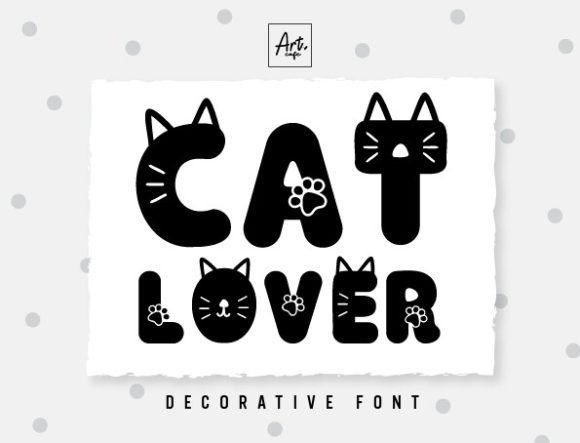
The Purr-fect Font for Designers: Introducing Cat Lover Font
Do you ever find yourself doodling cats everywhere, from your to-do lists to your social media posts? You’re not alone! For many of us, cats bring a sense of joy and comfort that inspires our creativity. And what better way to express that love than with a font that’s as playful and adorable as our feline friends?
Enter Cat Lover Font, a display font designed specifically for cat lovers and kids. This bold and cheerful font is perfect for any design project, from posters and t-shirts to planners and stickers. With full support for all English characters, Cat Lover Font is a valuable addition to any designer’s toolkit. Whether you’re working on a cat-themed project or just want to add a little whimsy to your designs, this font is sure to bring a smile to your face and a touch of personality to your work.
Cat Lover Font Key Features
- Unique Characteristics: The Cat Lover Font features adorable cat silhouettes and whimsical designs, making it a perfect choice for cat lovers and designers looking for a playful touch.
Designer Review: Cat Lover Font
Overall, I was excited to dive into the Cat Lover Font, as a self-proclaimed cat enthusiast and designer. Here’s my honest take.
- Unique Feline Features: The font’s cat-inspired elements, such as whiskers and paw prints, are a great touch for cat lovers.
- Playful Yet Legible: The font’s playful nature doesn’t compromise its legibility, making it suitable for a variety of designs.
- Customization Options: The font’s creators have included some nice customization options, such as size and color variations.
Limitsations ⚠️
- Limited Character Set: The font’s character set is limited, which may be a concern for designers who need to use special characters or languages.
- Lack of Consistency: Some of the cat features feel a bit disjointed, which can disrupt the overall design flow.
- Not Ideal for Long Text: Due to its playful nature, the font may not be the best choice for long blocks of text.
Overall, I think the Cat Lover Font is a fun and unique addition to any design project. While it has some limitations, its strengths make it a great choice for cat-themed designs or projects where a playful touch is needed.
Getting the Most Out of the Cat Lover Font
Here are some tips for getting the most out of the Cat Lover Font:
- Use the font in combination with cat-themed graphics and images for a cohesive look.
- Use the font to create eye-catching headlines and titles.
The Cat Lover Font is perfect for:
- Cat-themed merchandise and products.
- Marketing materials and advertisements for cat-related businesses.
- Personalized gifts and cards for cat lovers.